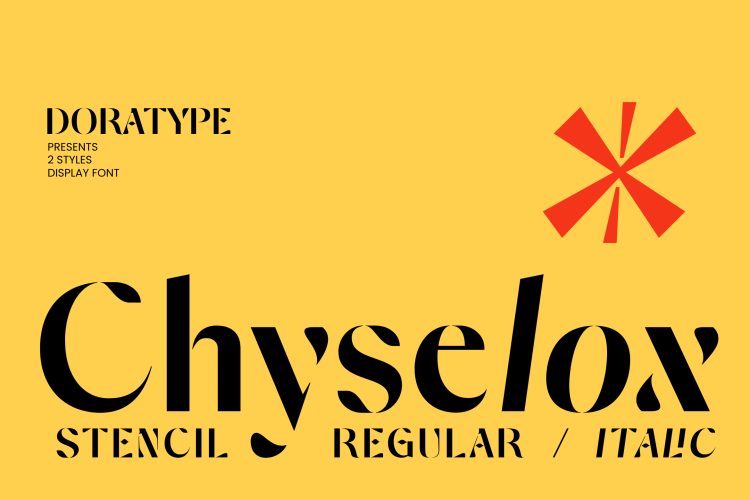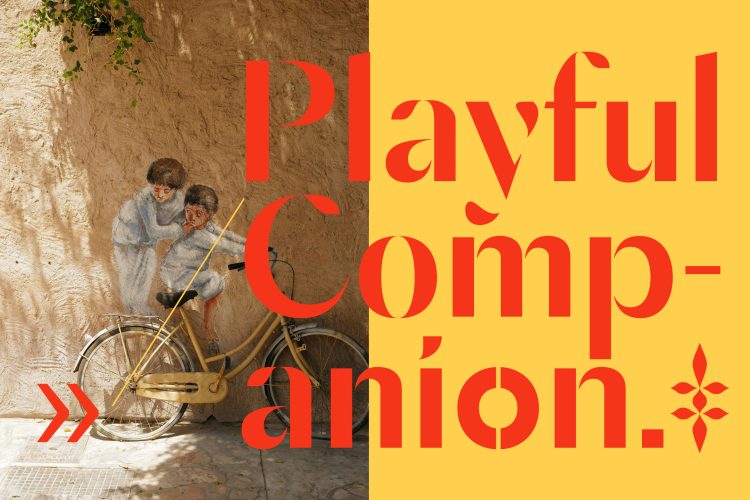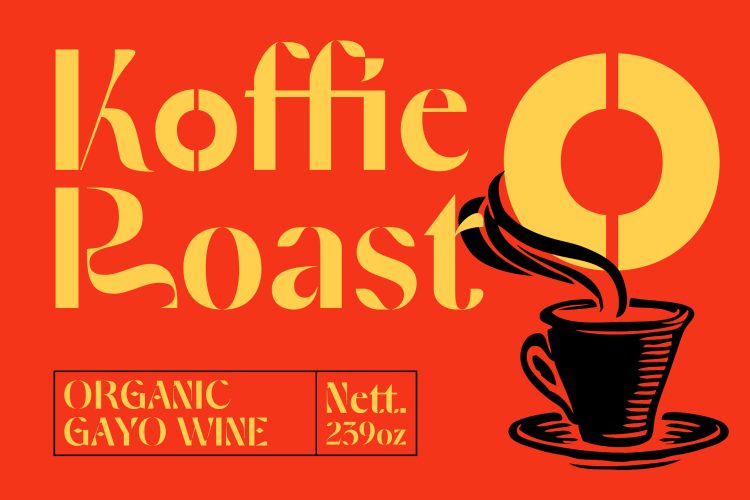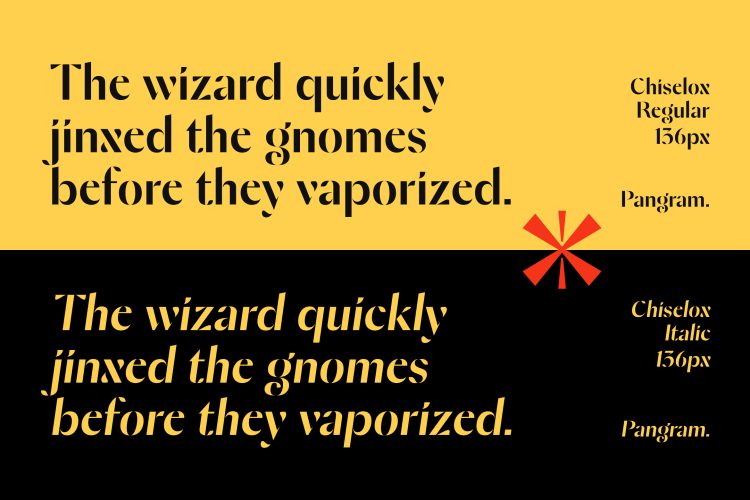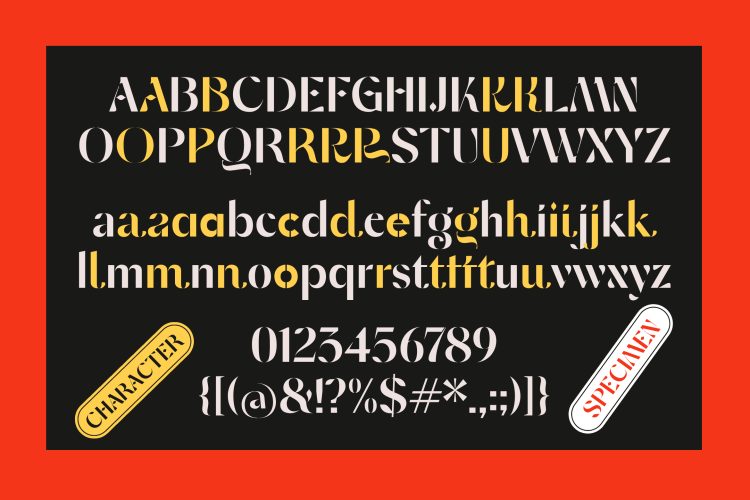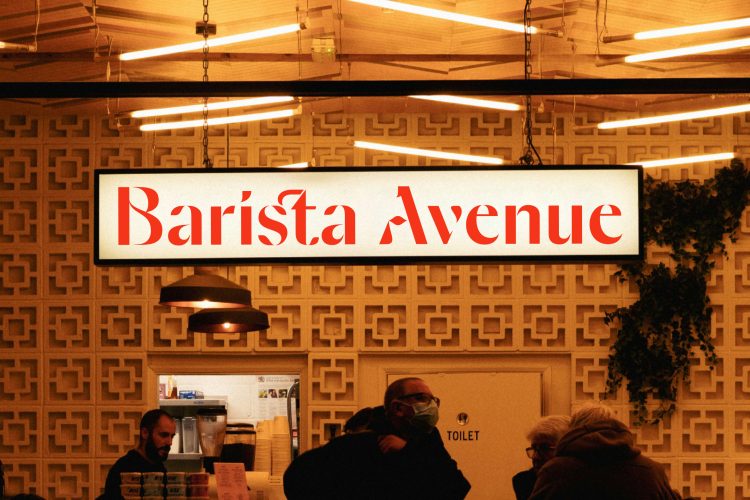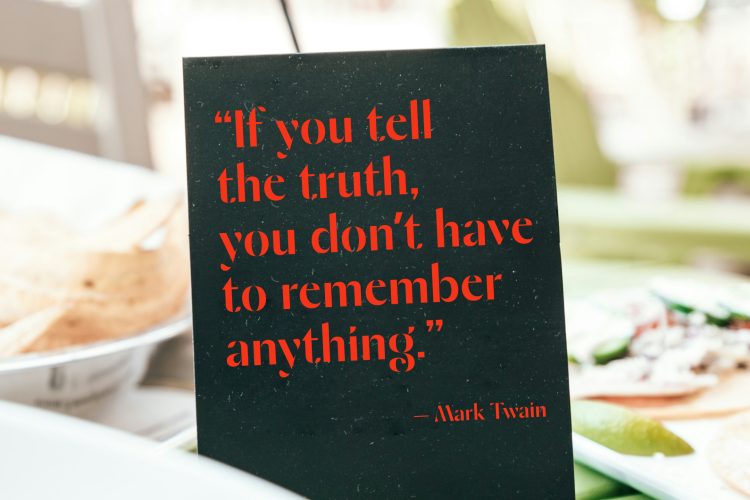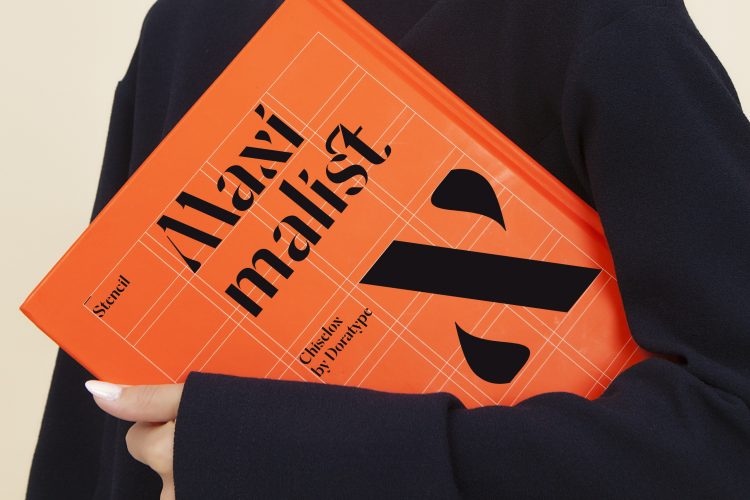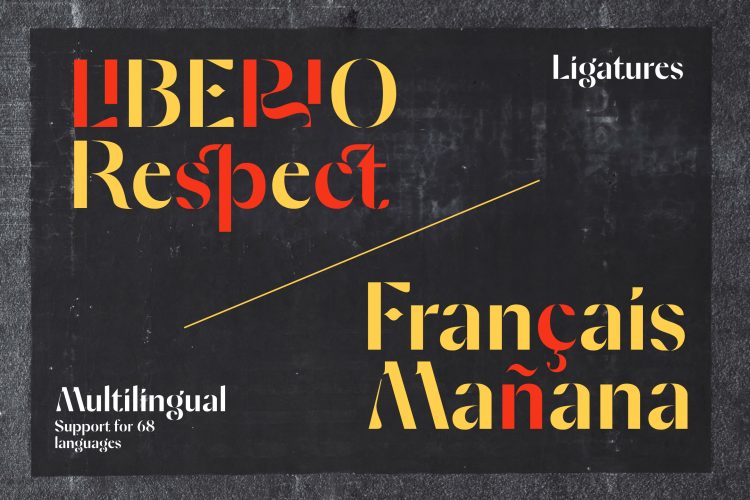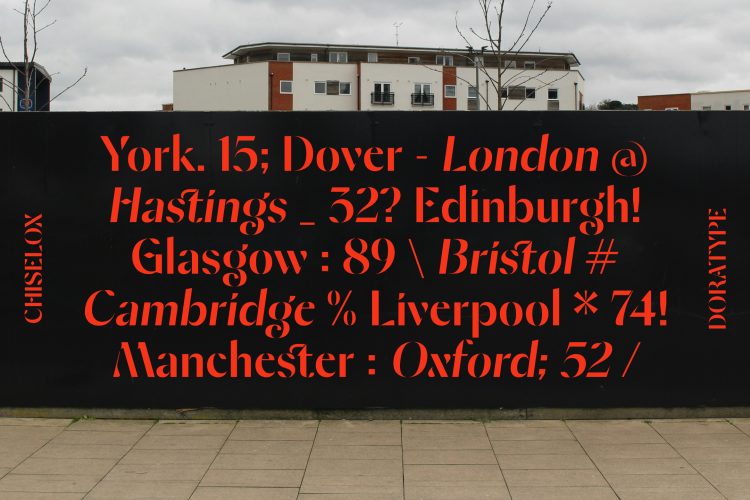
Chyselox is a classic stancil sans-serif typeface with a friendly touch that feels very modern. Known for its subtle details making it versatile for a variety of uses across the brand.
Features:
- All Caps Font with different uppercase and lowercase
- Number & Symbol
- Supported Languages
- Alternates and Ligatures